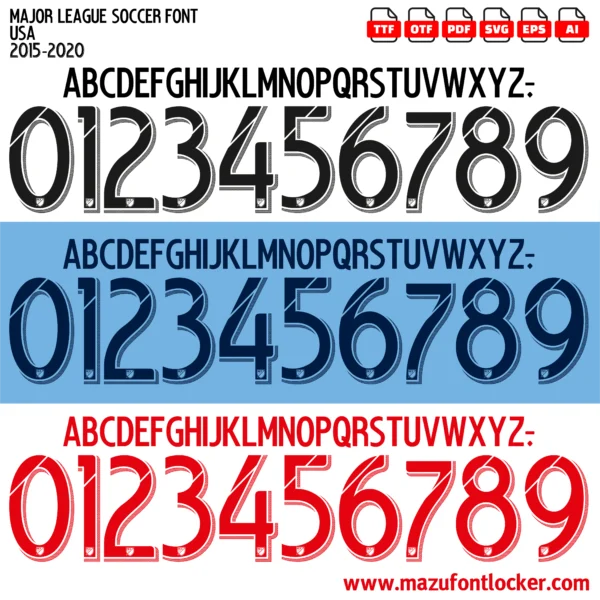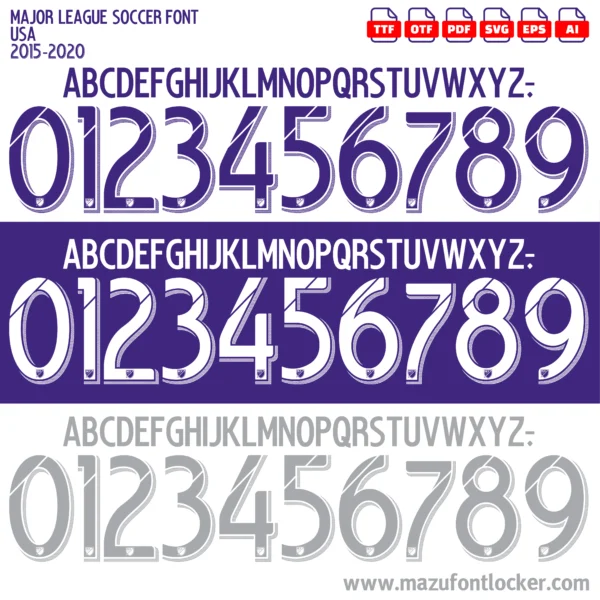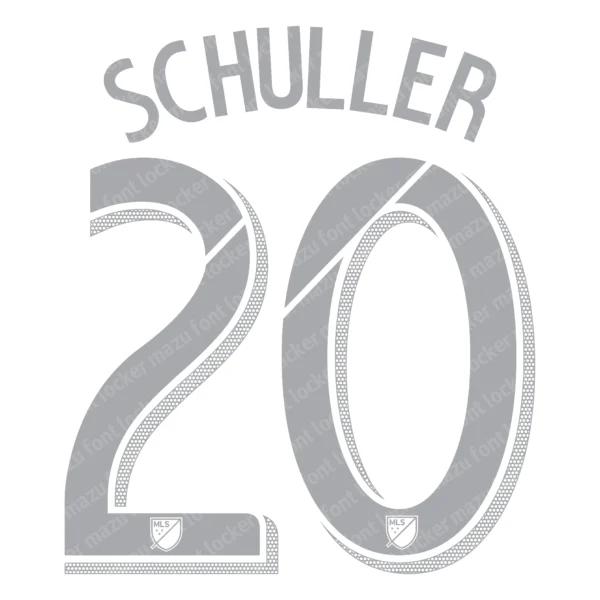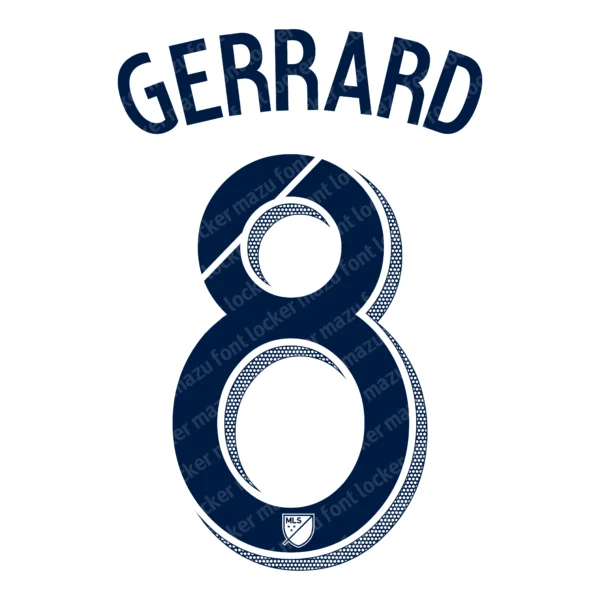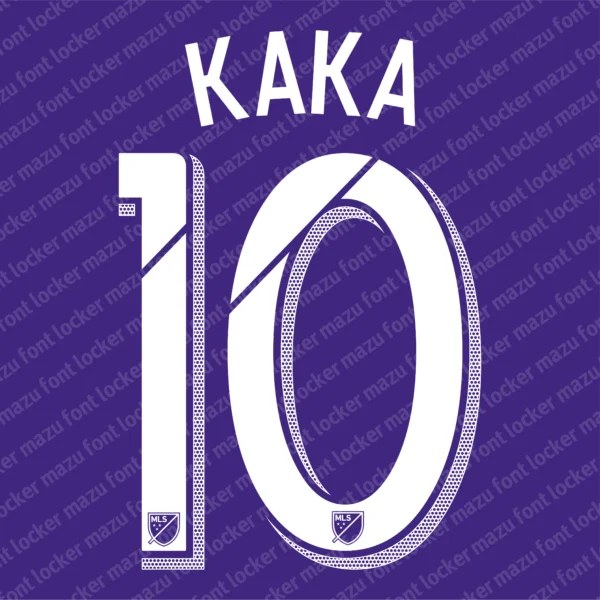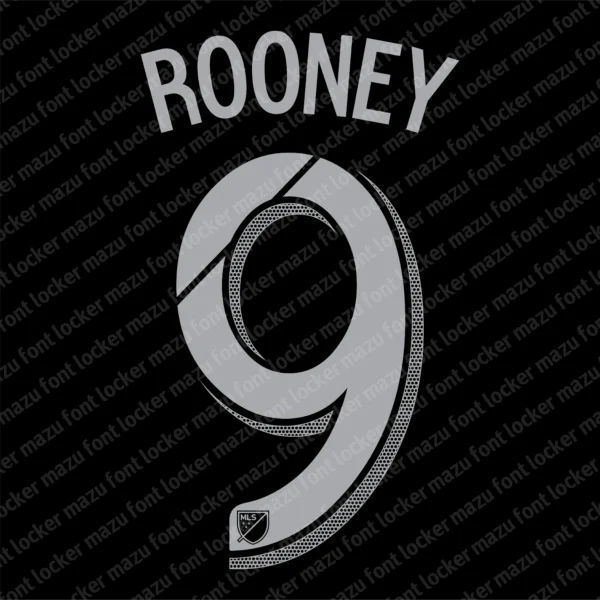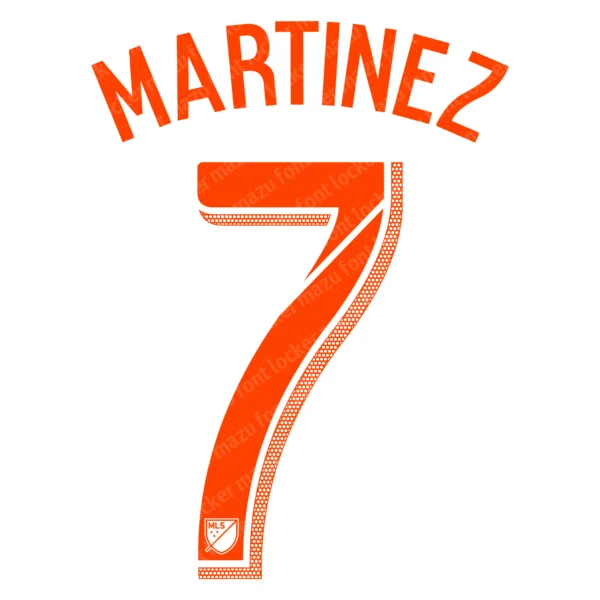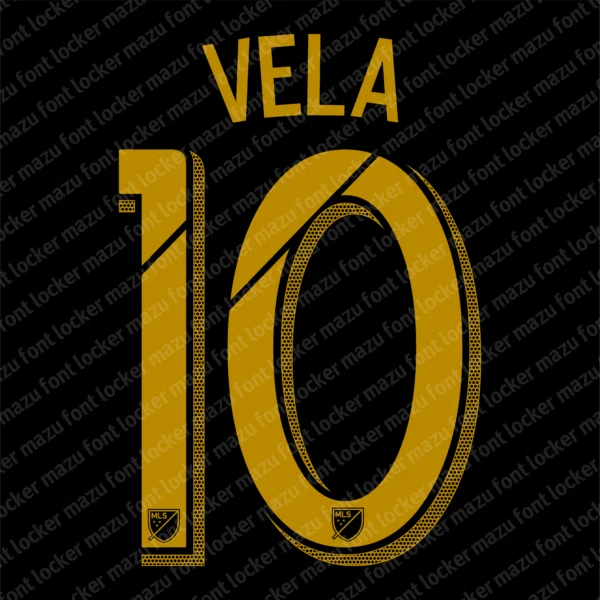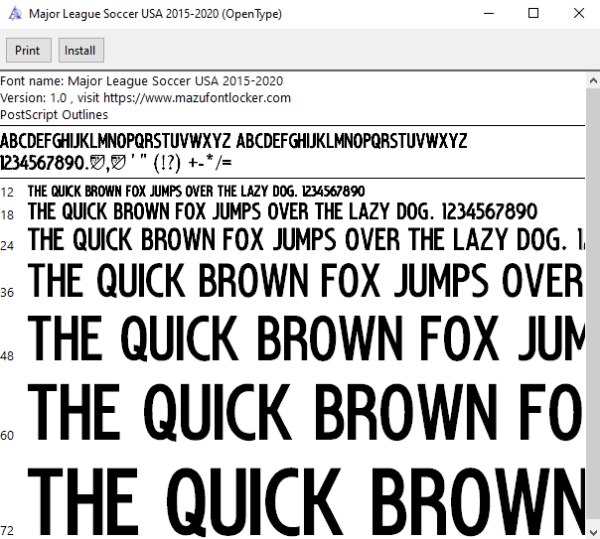
Major League Soccer USA 2015-2020 Font Vector – Epic MLS Icons Masterpiece (Requested)
This font locks in the aggressive, clean-cut, thunder-strike lettering that defines Major League Soccer’s iconic identity, USA soccer heritage, star-spangled passion, and elite North American power — delivering raw authenticity, premium punch, explosive intensity, and true MLS dominance for jersey mockups, dynamic sports graphics, pro branding, and high-impact fan designs.
Major League Soccer USA 2015-2020 Font Vector – Stunning MLS Red, White & Blue Typeface
The Major League Soccer USA 2015-2020 Font Vector is a premium typeface that accurately recreates the distinctive match lettering associated with Major League Soccer clubs during the 2015-2020 seasons. This high-quality vector font kit captures the bold, clean, and instantly recognizable typography that perfectly complements the league’s iconic American soccer identity.
Why Choose Major League Soccer USA 2015-2020 Font Vector
This font stands out thanks to its precise vector construction and authentic league-inspired styling. Every letter and numeral has been meticulously recreated to match the distinctive football lettering aesthetic associated with Major League Soccer during the 2015-2020 seasons and its domestic and international campaigns.
Whether you’re producing professional soccer kit templates, custom jersey concepts, or eye-catching football content, the Major League Soccer USA 2015-2020 Font Vector delivers a genuine match-ready appearance inspired by the identity of MLS clubs across the United States and Canada.
The lettering featured in the Major League Soccer USA 2015-2020 Font Vector combines clean geometric lines with bold modern proportions. The result is a premium and highly readable typeface that reflects MLS’s growing football heritage, iconic red, white and blue colors, American soccer identity, and passionate fanbase across the league.
The numerals feature balanced curves, sharp edges, and consistent spacing for maximum readability on soccer jerseys and digital media. Built entirely as scalable vectors, every number remains crisp and clear for jersey customization, posters, banners, print projects, social media graphics, and high-resolution football artwork.
- Complete uppercase A–Z alphabet and numbers 0–9 in authentic Major League Soccer USA 2015-2020 inspired style
- Special MLS badge glyph – Press the “:” (Colon) key to insert the league badge
- Build modern soccer graphics celebrating MLS clubs and their 2015-2020 campaigns
Major League Soccer USA 2015-2020 Seasons
The 2015-2020 period marked an exciting chapter for Major League Soccer as the league expanded, grew in popularity, and continued to develop competitive domestic and international campaigns. Clubs prepared for each season with preseason fixtures and training while building momentum across the MLS regular season, playoffs, and beyond.
Wearing their distinctive club colors alongside the league’s strong American soccer identity, MLS teams continued to represent a proud football tradition built on passion, community spirit, and a growing connection with supporters across stadiums in the United States and Canada.
The Major League Soccer USA 2015-2020 Font Vector is inspired by the distinctive football typography and visual identity associated with this era, making it an excellent choice for designers creating custom jersey concepts, soccer posters, squad graphics, matchday artwork, and fan-made projects. For official league information, news, team updates, fixtures, and match information, visit the official Major League Soccer website.
The Major League Soccer USA 2015-2020 Font Vector is an independently designed typeface package inspired by the official shirt lettering and visual identity associated with Major League Soccer during the 2015-2020 football seasons. It has been carefully recreated for soccer enthusiasts, graphic designers, collectors, jersey creators, and fans producing custom football concepts, digital artwork, and fan-made projects. Please note that this is a fan-made design resource and is not an official product of Major League Soccer, the United States Soccer Federation, CONCACAF, or any associated organization.